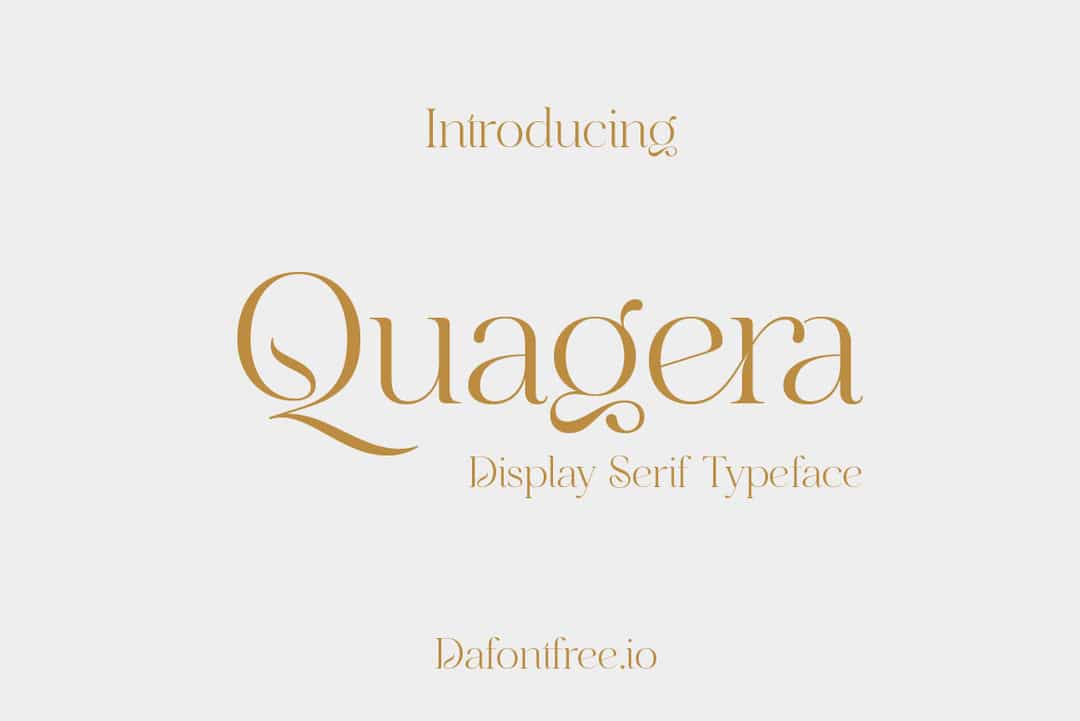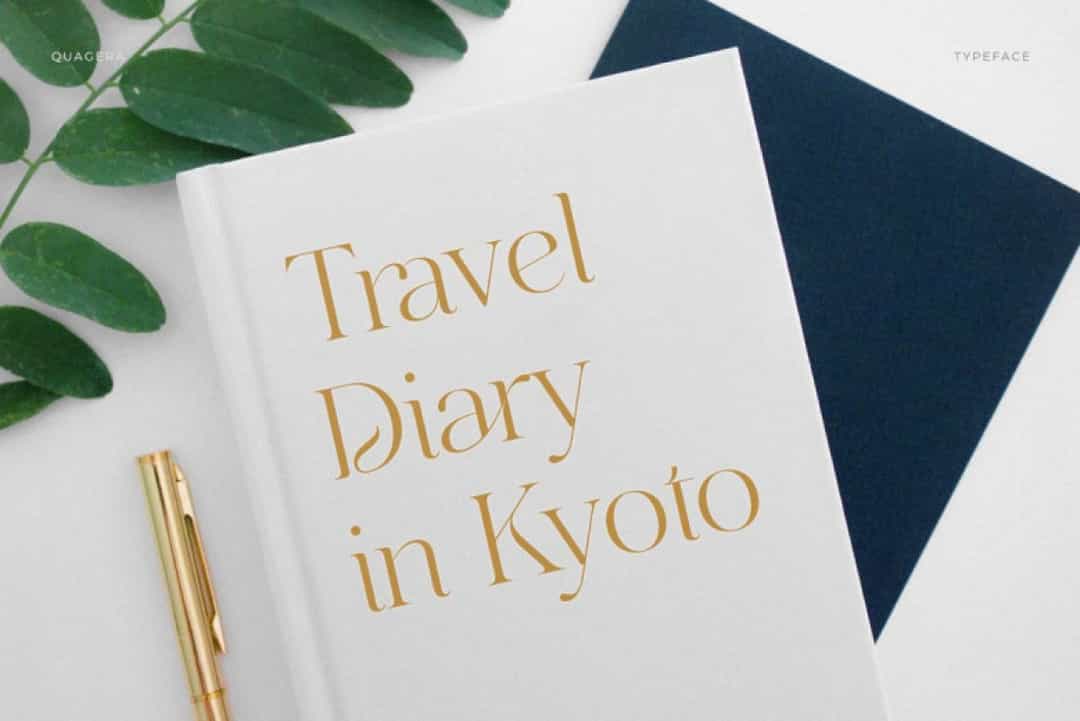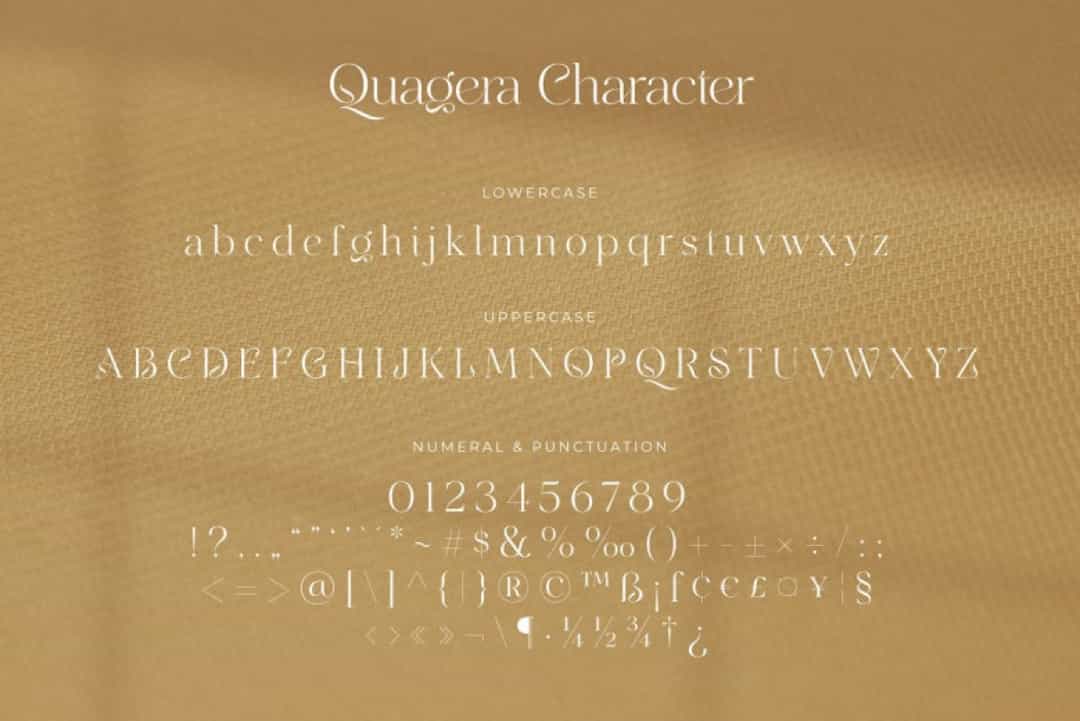
Quagera is an elegant serif font with a blend of traditional and contemporary styles. Equipped with original, discretionary, and alternative ligatures, Quagera font is well suited to use on formal designs such as invitations, logos and fashion wedding/wedding cards, labels magazines packaging books makeup stationary novels labels labels advertisements etc.